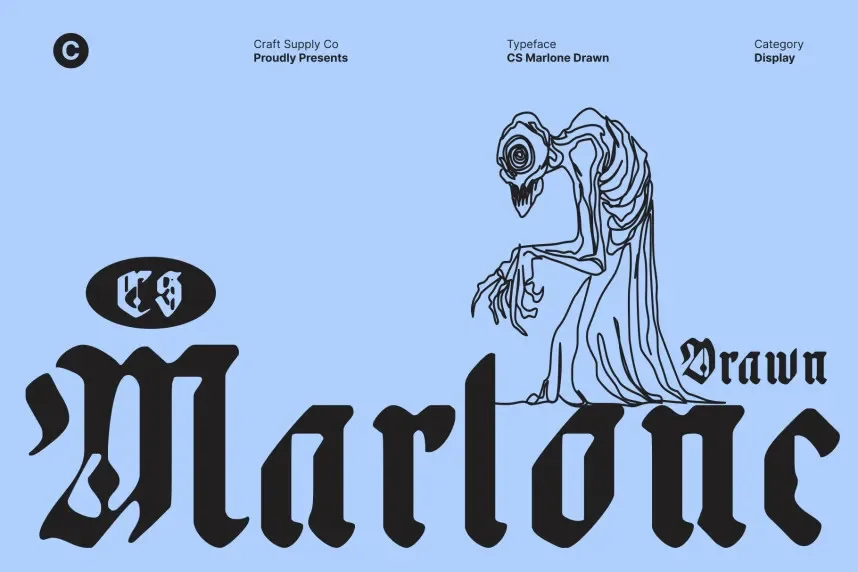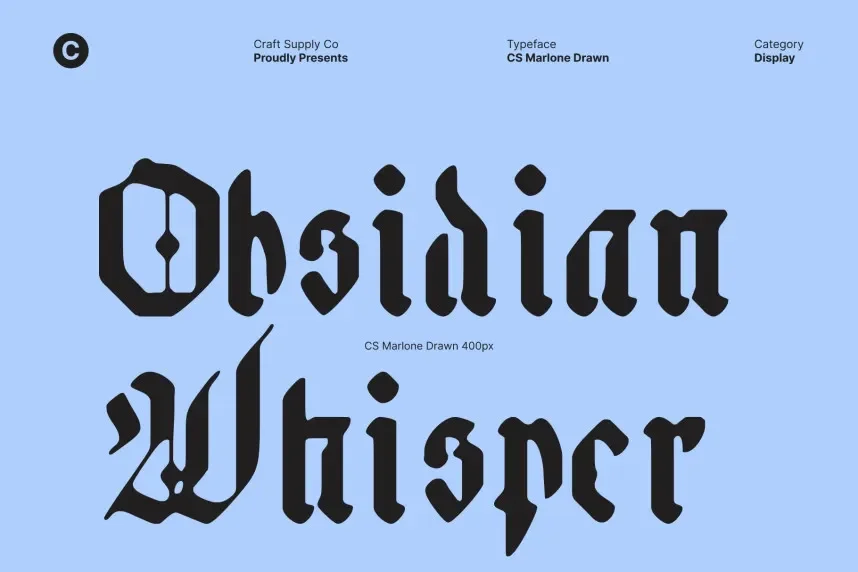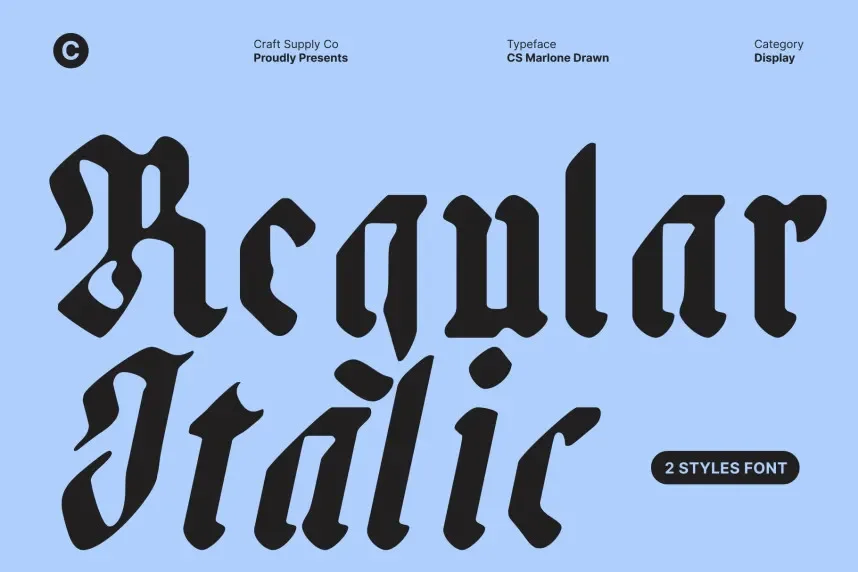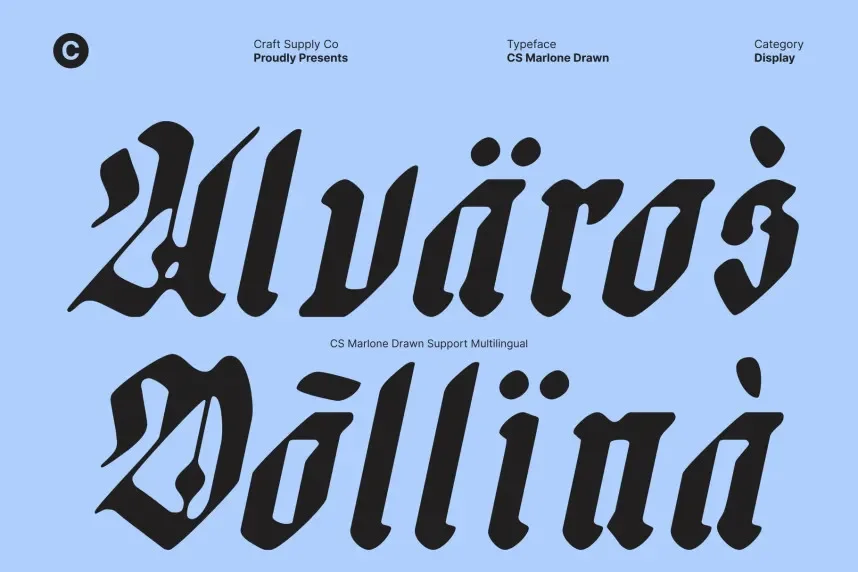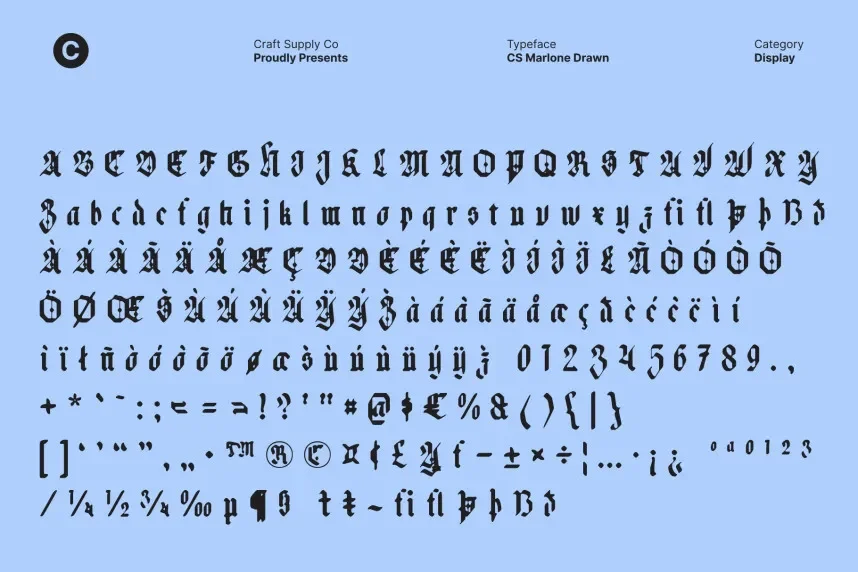
CS Marlone Drawn Font addresses the need for a font that brings creativity and uniqueness to designs while remaining readable. It’s a great choice for projects where a hand-drawn style is needed without sacrificing clarity.
CS Marlone is a hand-drawn display font featuring expressive, sketchy strokes with uneven weight and texture. The font captures the spontaneity of hand-drawn art while offering good readability in larger sizes.